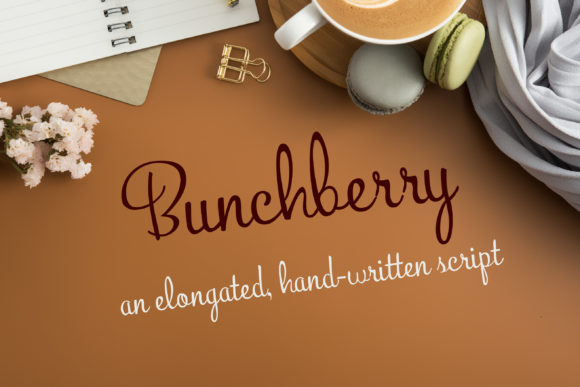
Bunchberry Font
Unleash the allure of your words with Bunchberry, a script font family that dances across the digital canvas with grace and elegance. Whether you're a creative professional seeking to elevate your branding project or a design enthusiast yearning for a touch of whimsy in your digital creations, Bunchberry promises to leave an unforgettable impression.
Picture this: Your product packaging adorned with Bunchberry's playful strokes, instantly capturing the attention of potential customers. Your social media posts transformed into visually stunning masterpieces, drawing followers into a world of enchantment. Wedding invitations crafted with Bunchberry's delicate charm, leaving a lasting memory of your special day.
This versatile font family is a symphony of creativity, effortlessly adapting to a myriad of design projects. Its inherent charm shines through on magazine covers, adding an air of sophistication to your written words. Unleash your inner artist and let Bunchberry be the brush that paints your creative vision into reality.
With its delicate hairlines and graceful curves, Bunchberry possesses an undeniable charm that captivates the senses. Its well-balanced structure ensures effortless readability, while its playful personality adds a touch of whimsy to any project. Step into a world where your words come alive, dancing across the screen in perfect harmony.
Embrace Bunchberry, the font that ignites your imagination and empowers your creativity. Let its enchanting strokes elevate your designs, captivating your audience with their undeniable allure. Explore the boundless possibilities that await you when you embrace the magic of Bunchberry.